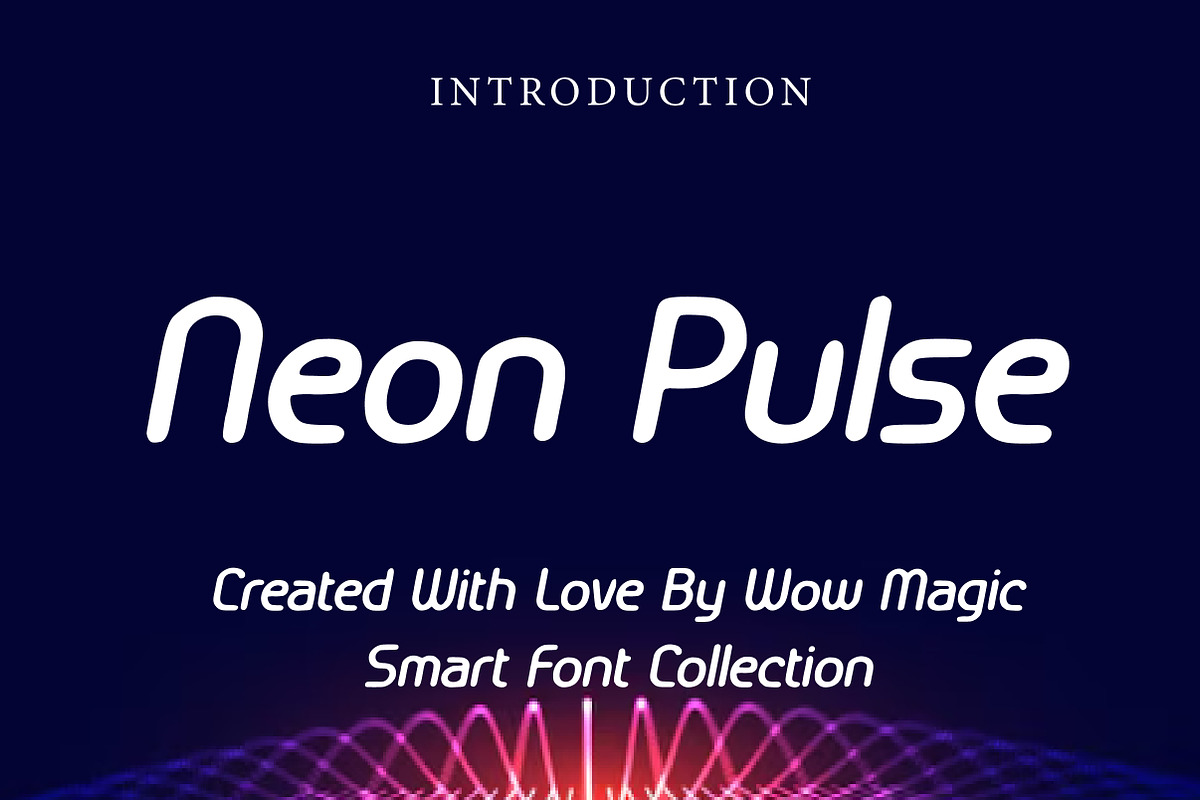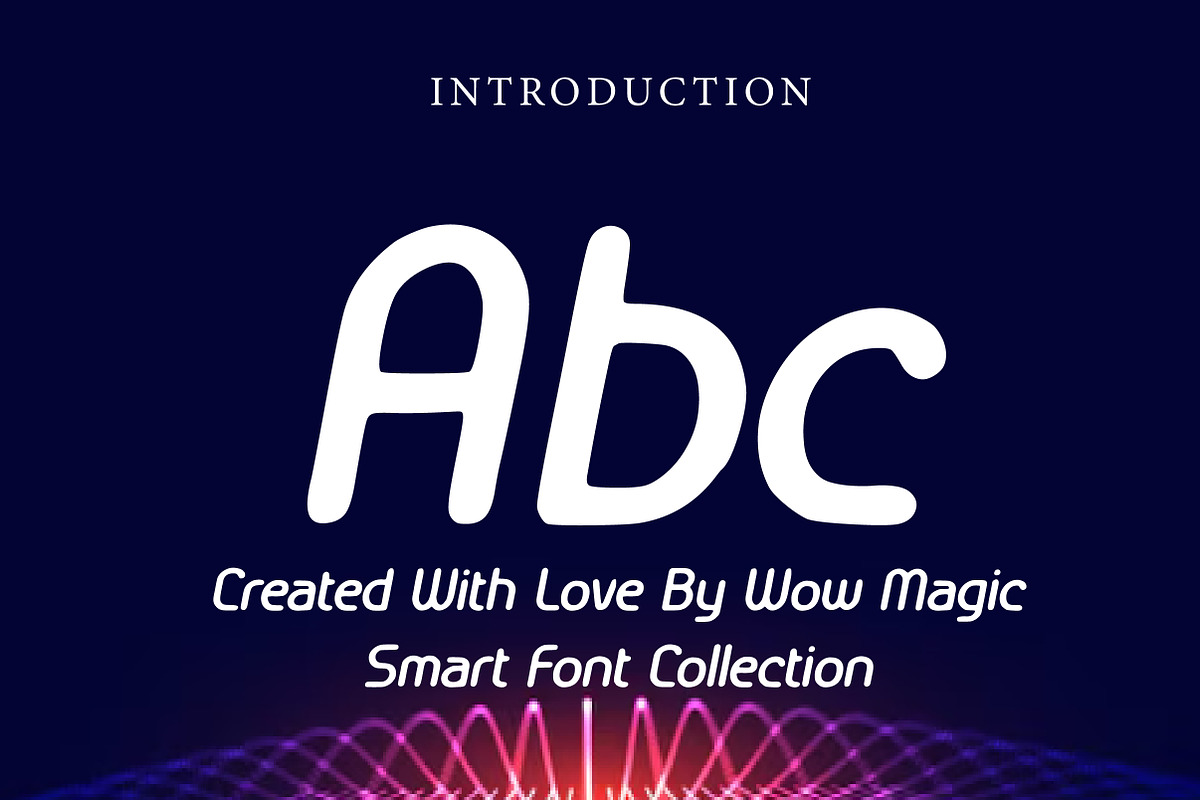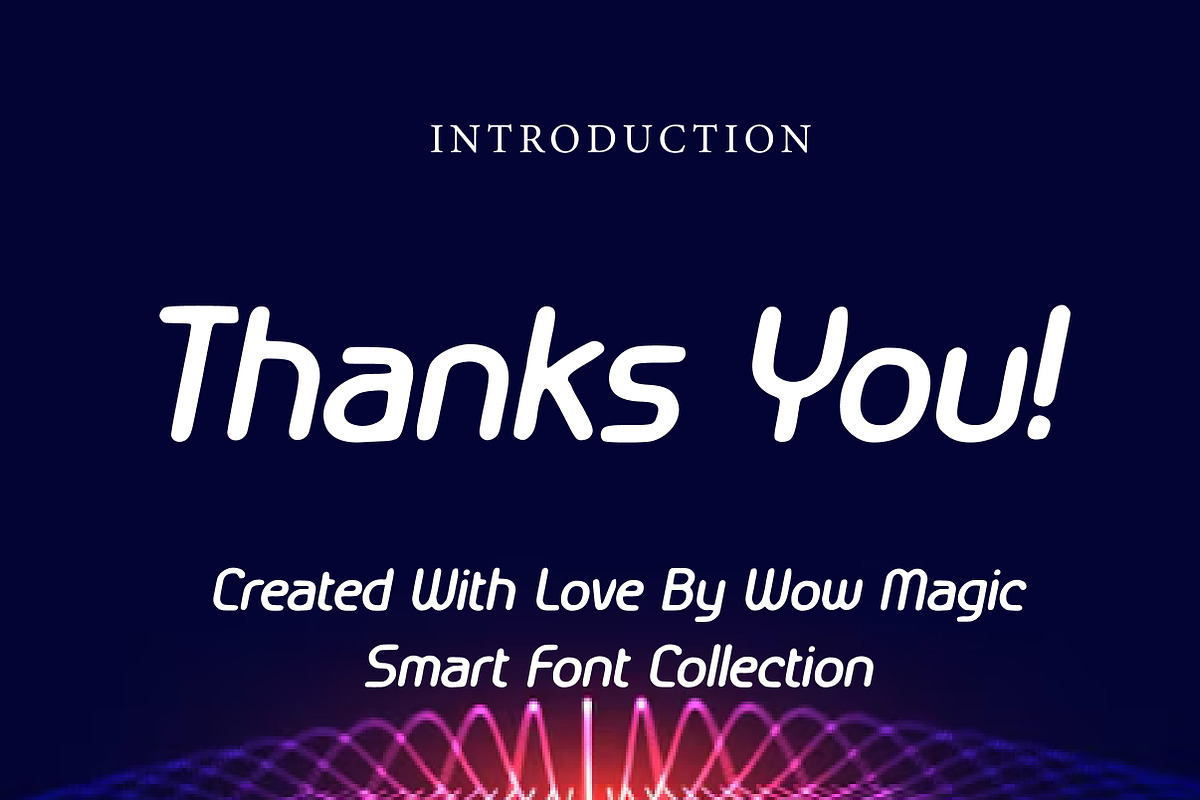
Neon Pulse
Neon Pulse is a sleek and energetic handwritten display font inspired by glowing city lights, retro neon signs, and modern urban aesthetics. With its smooth strokes, rounded terminals, and natural flowing rhythm, this typeface creates a vibrant and stylish look that feels both casual and contemporary.
The clean handwritten structure makes it highly versatile, while its soft curves and slightly italic movement give it a lively, illuminated personality. Neon Pulse is perfect for branding, logo design, social media graphics, posters, packaging, music artwork, and modern headline projects that need a bright and expressive touch.
Designed for creators who want a font that feels fresh, dynamic, and visually engaging, Neon Pulse brings a glowing modern vibe to both digital and print designs.
Branding Projects
Posters & Flyers
Music Covers
YouTube Thumbnails
Modern Headlines